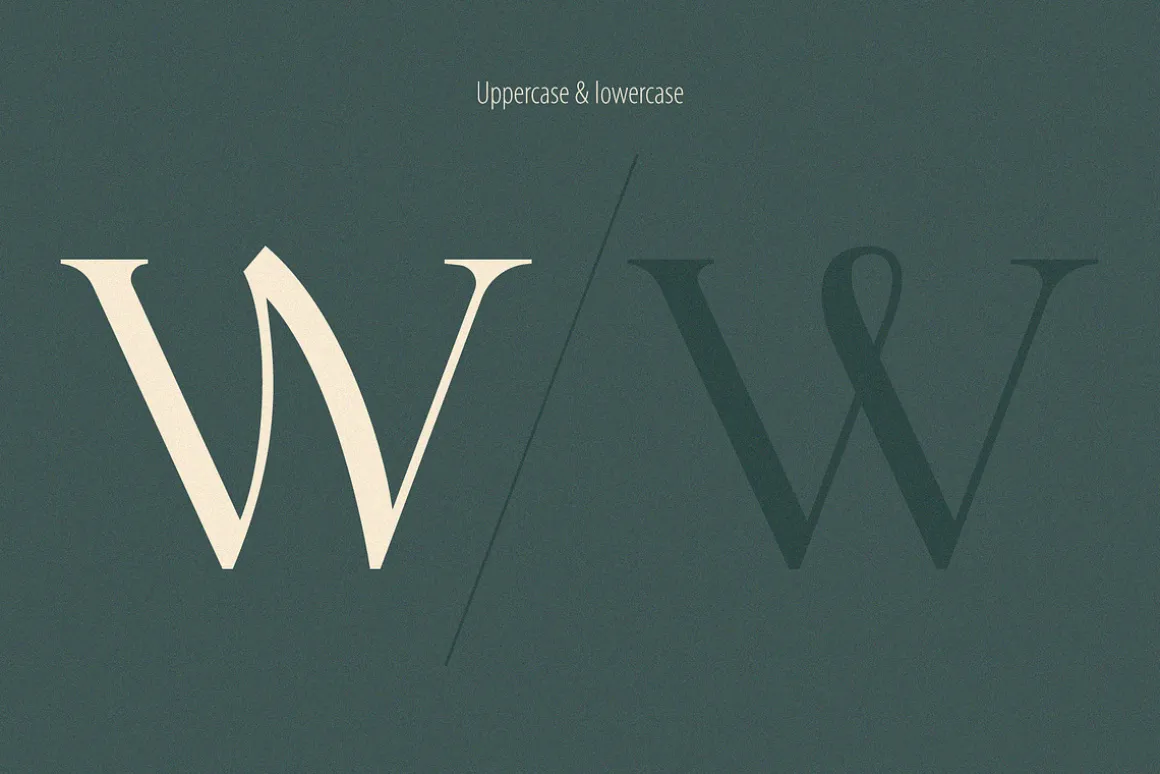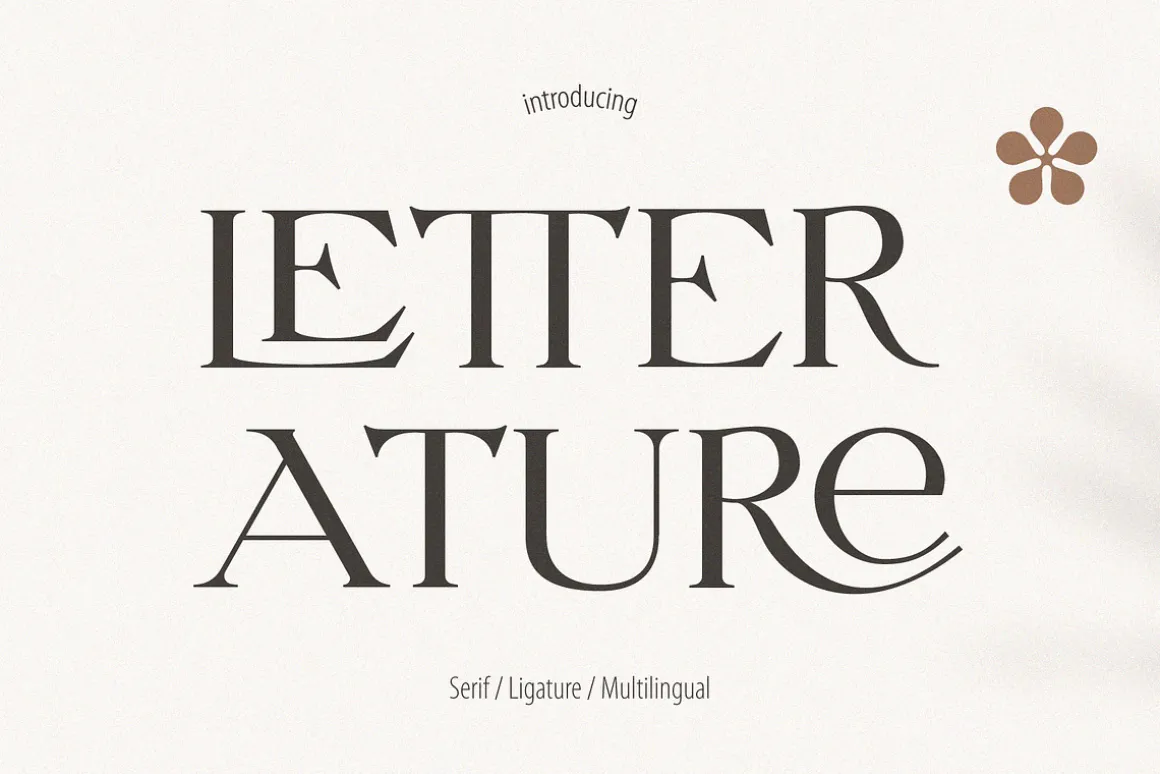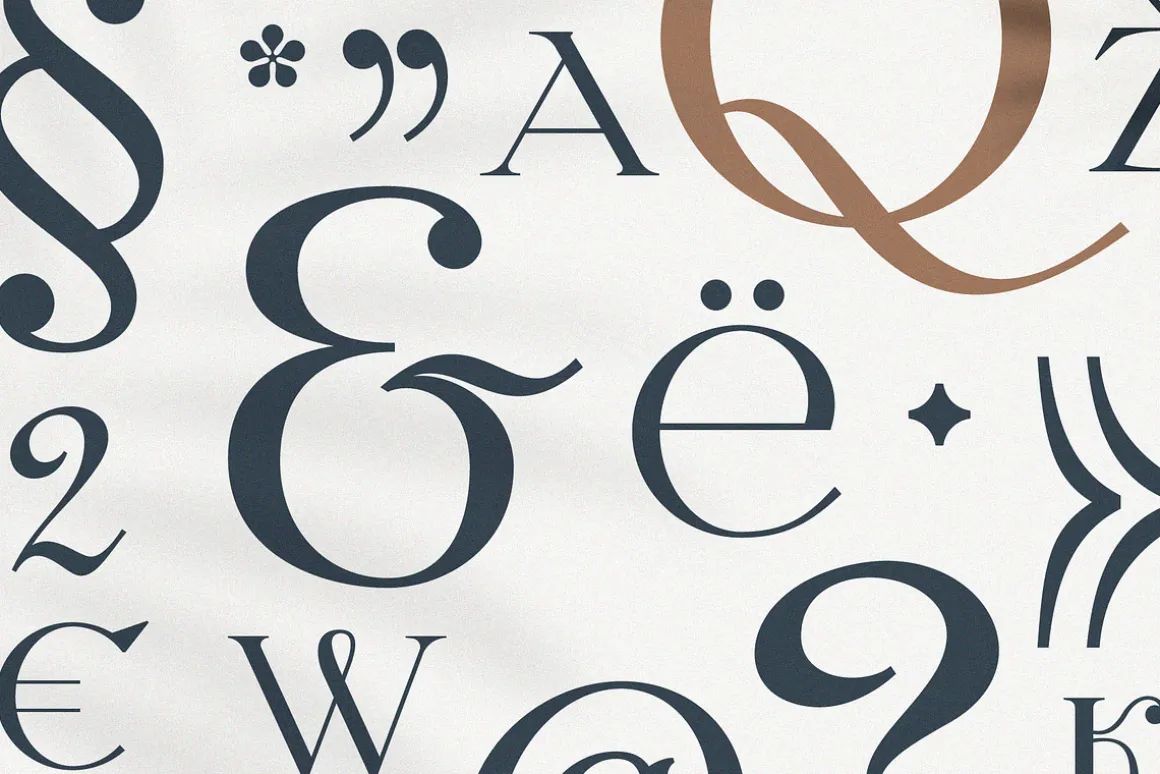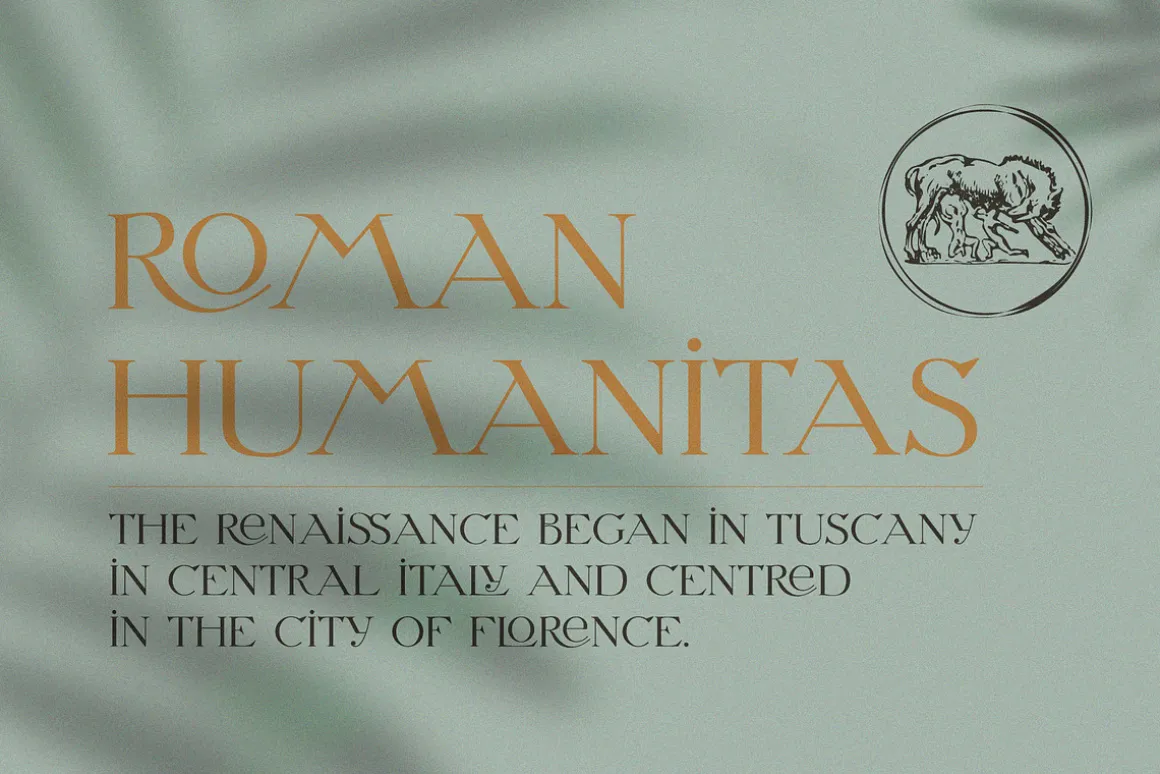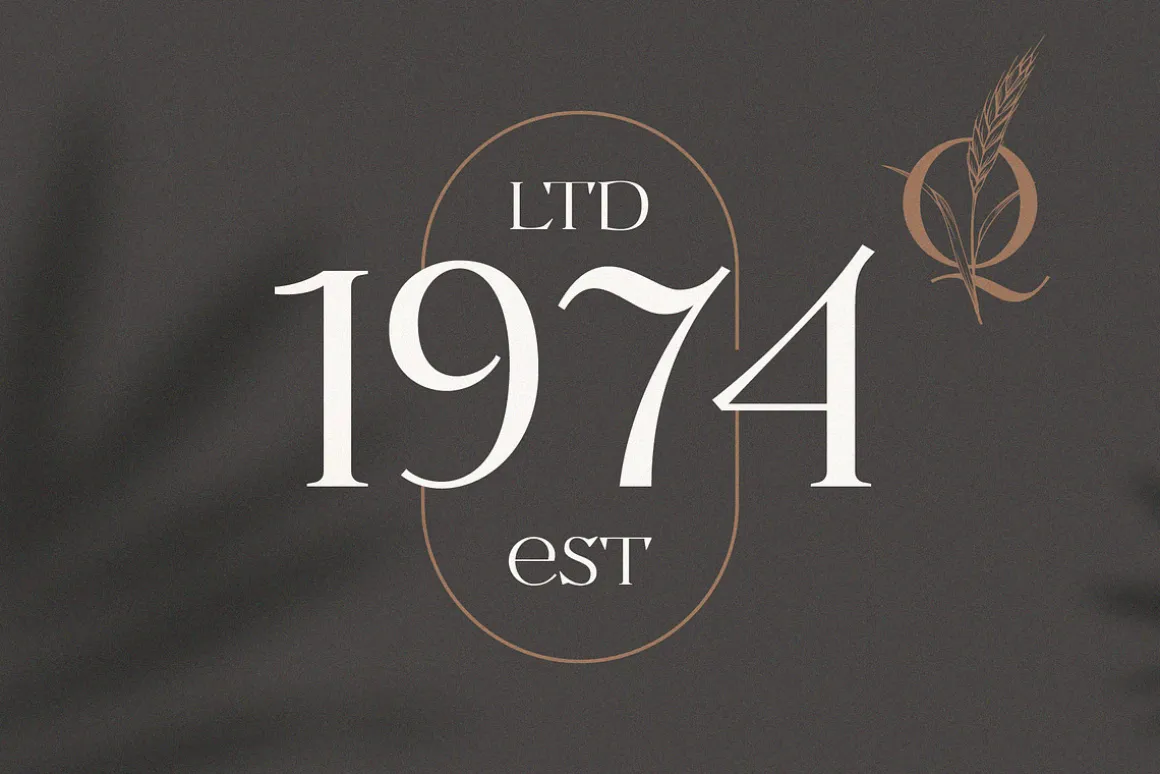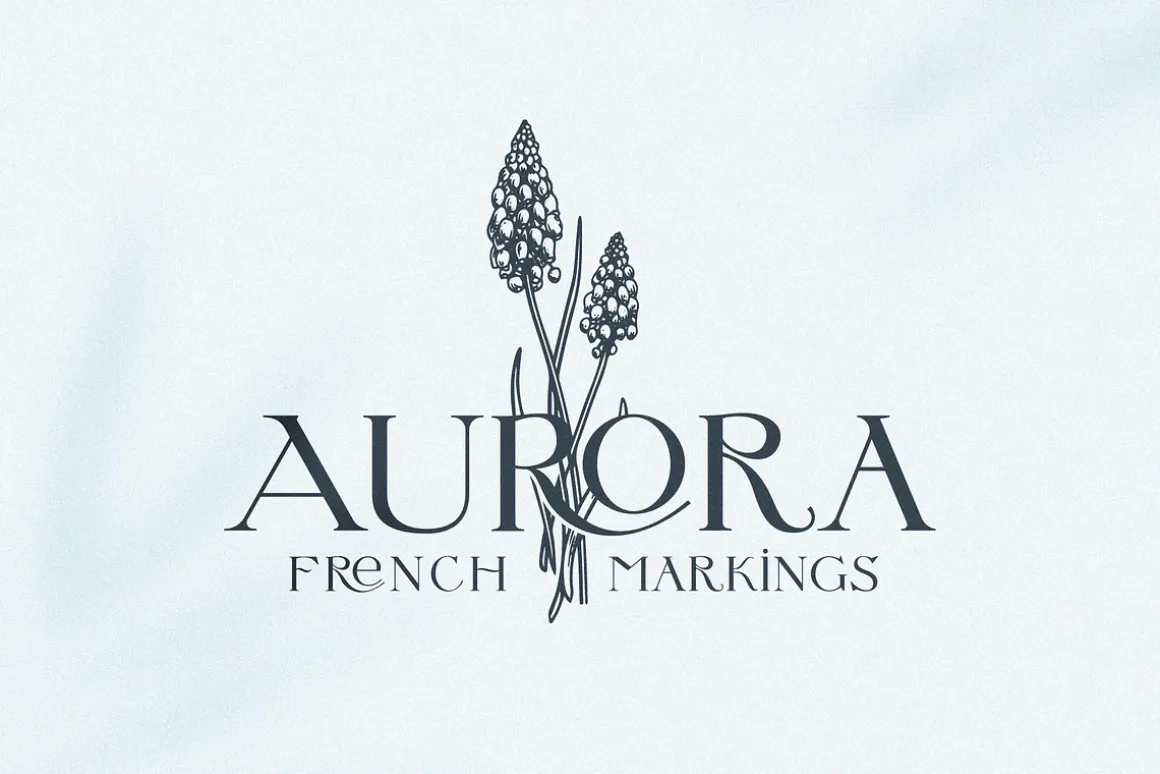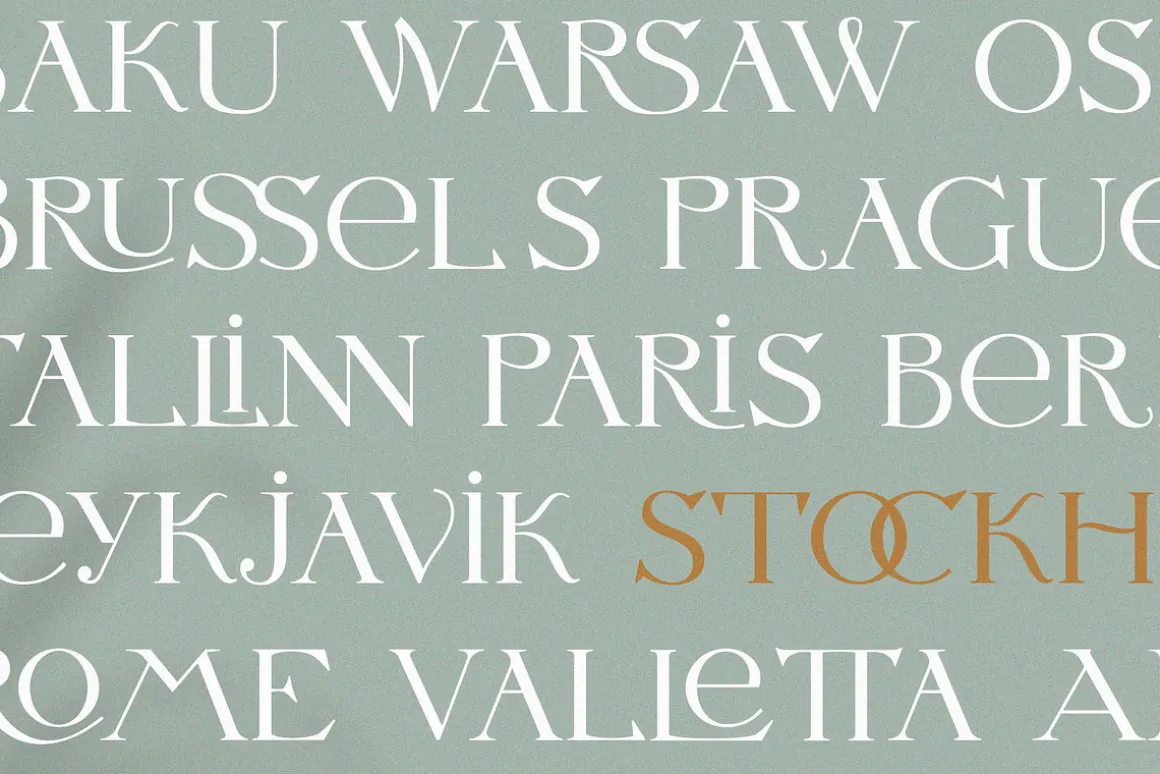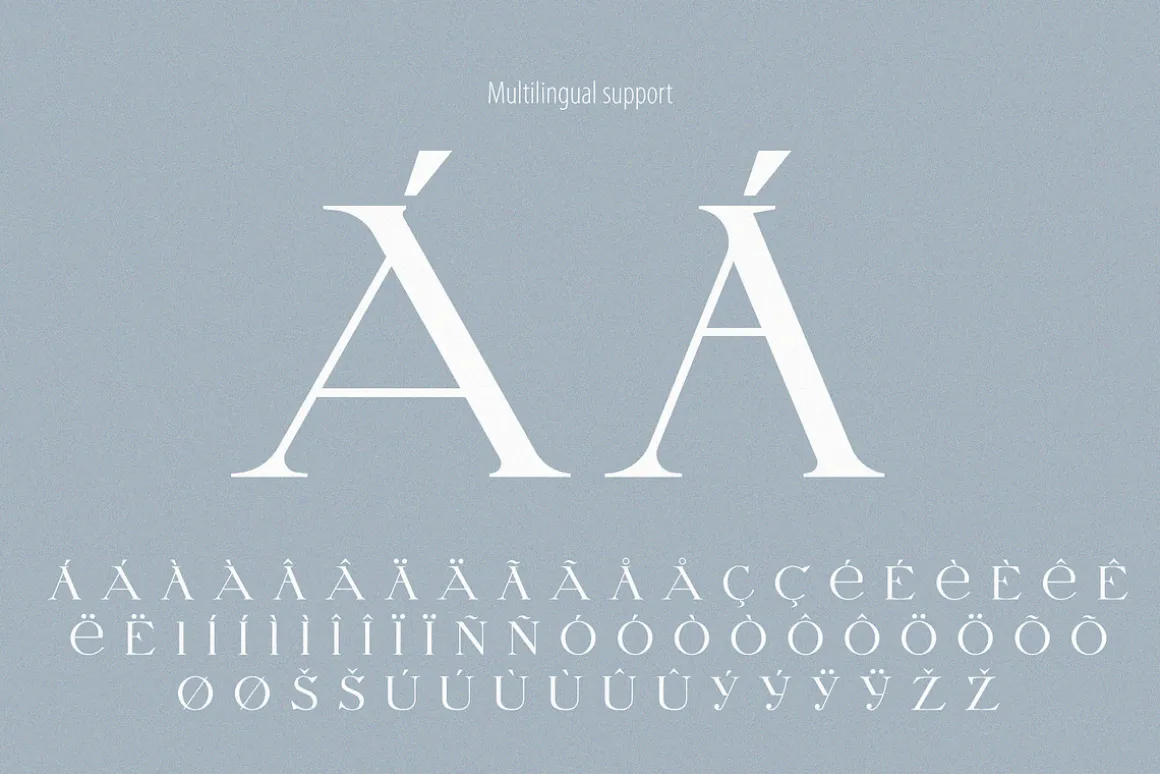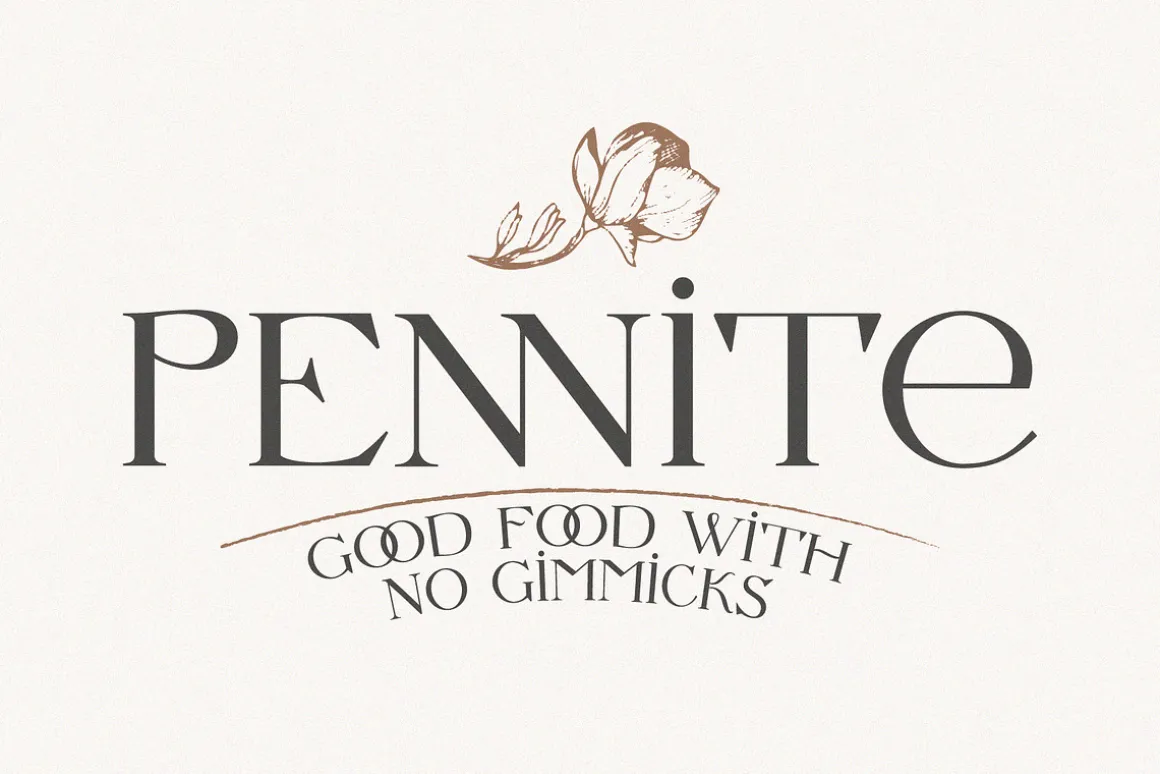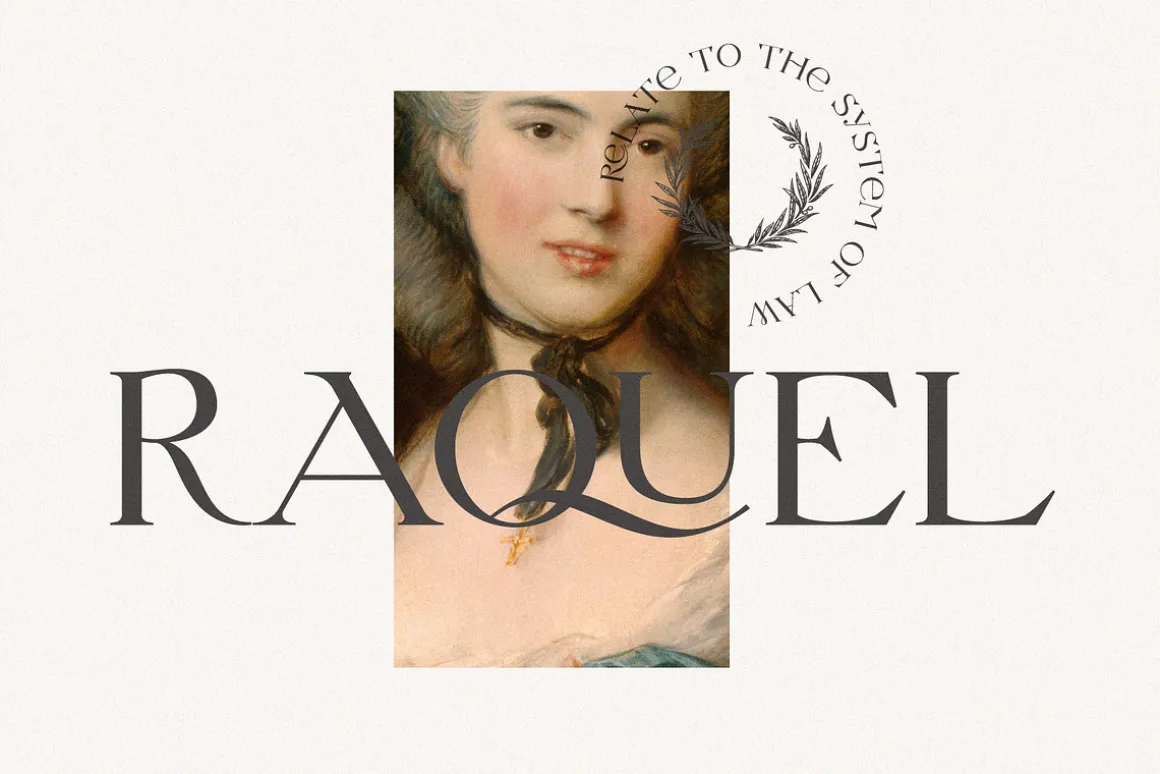
Letteratureis an elegant serif. I designed old-fashioned letters with playful ligatures. The font may be used for creating classical printing, logo design, clothing embroidery, product packaging, vintage header, luxury identity, etc.
- Uppercase and lowercase
- Ligatures
- Multilingual support
- Numbers
- Symbols
- Punctuation